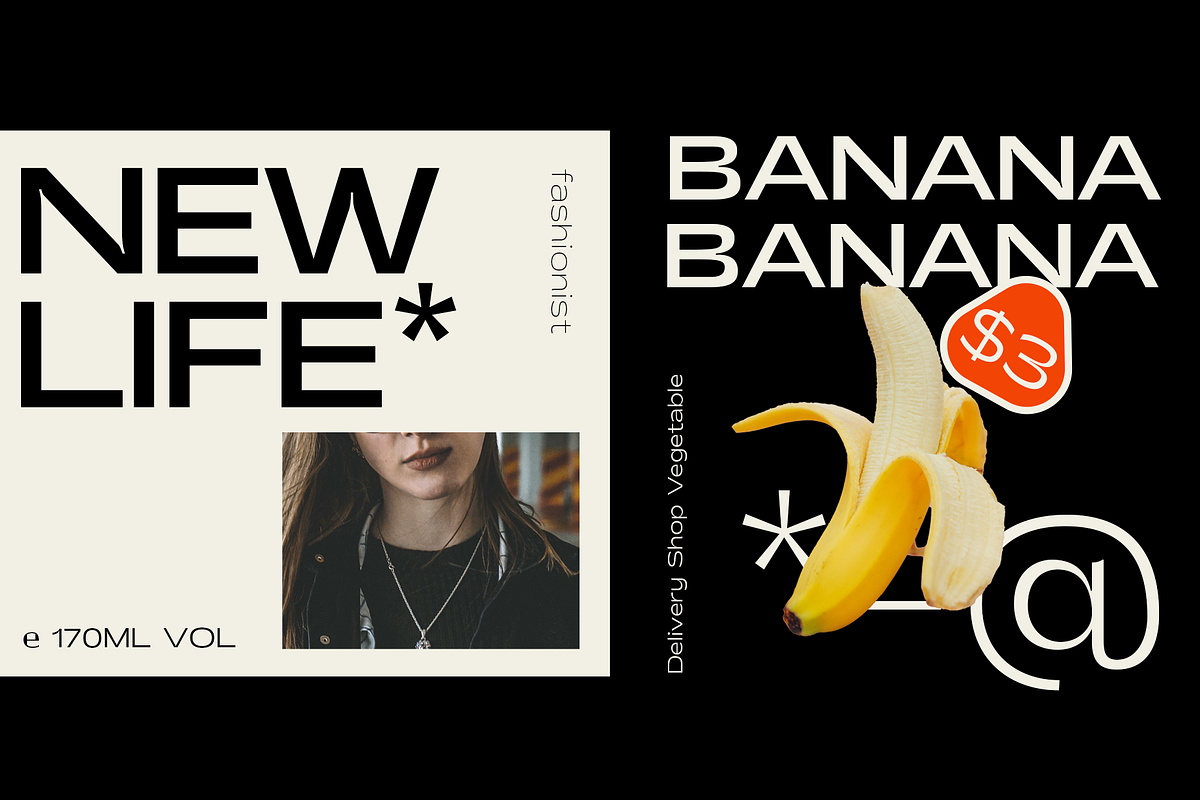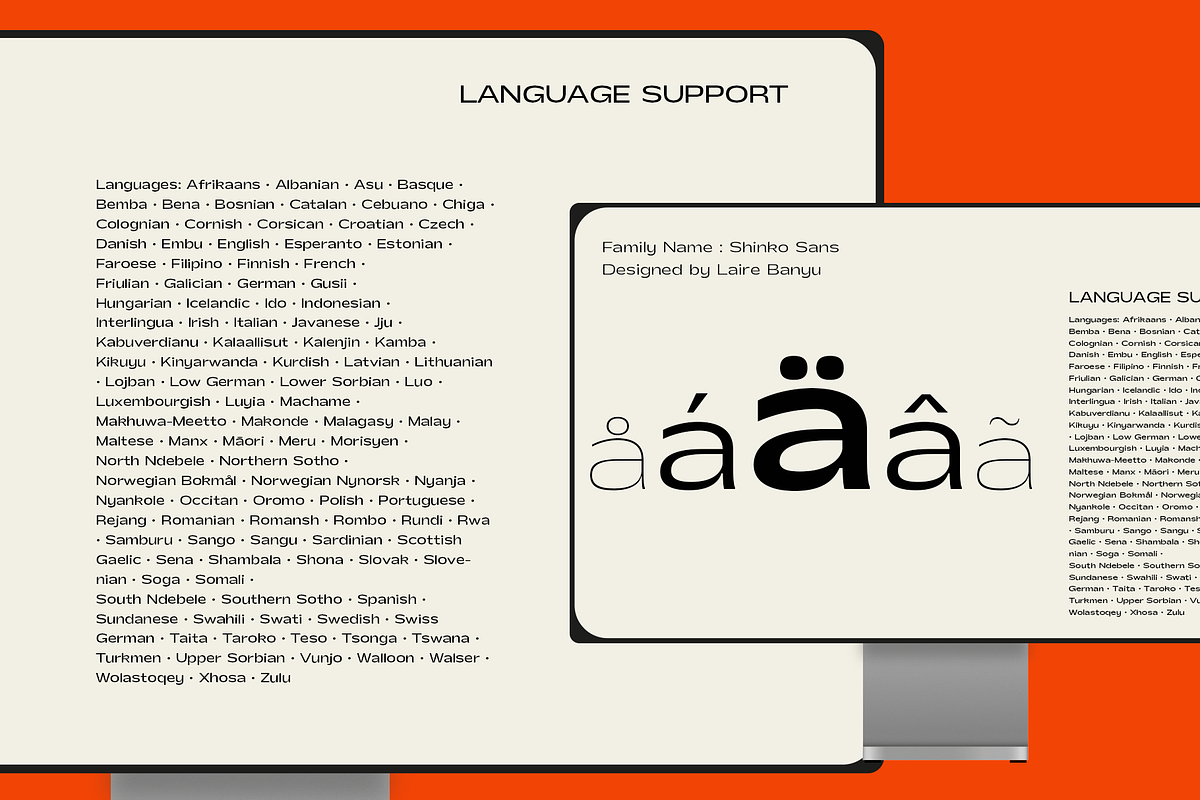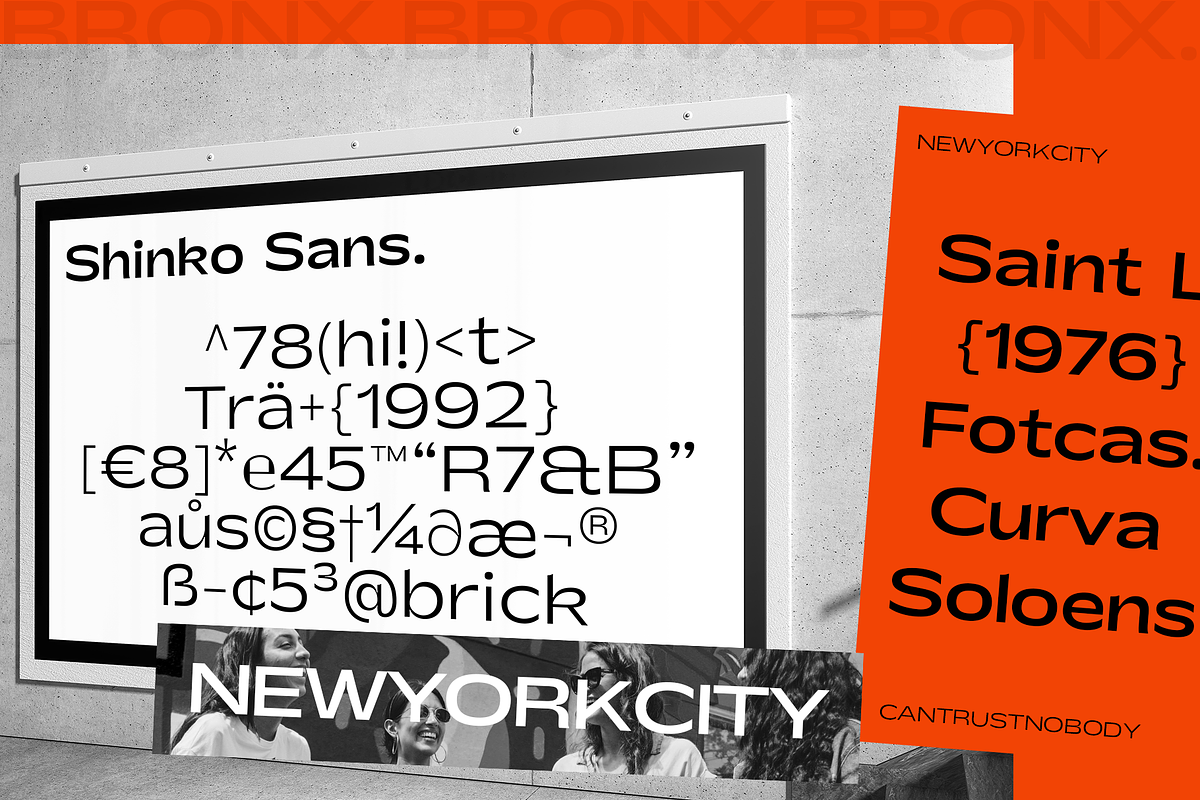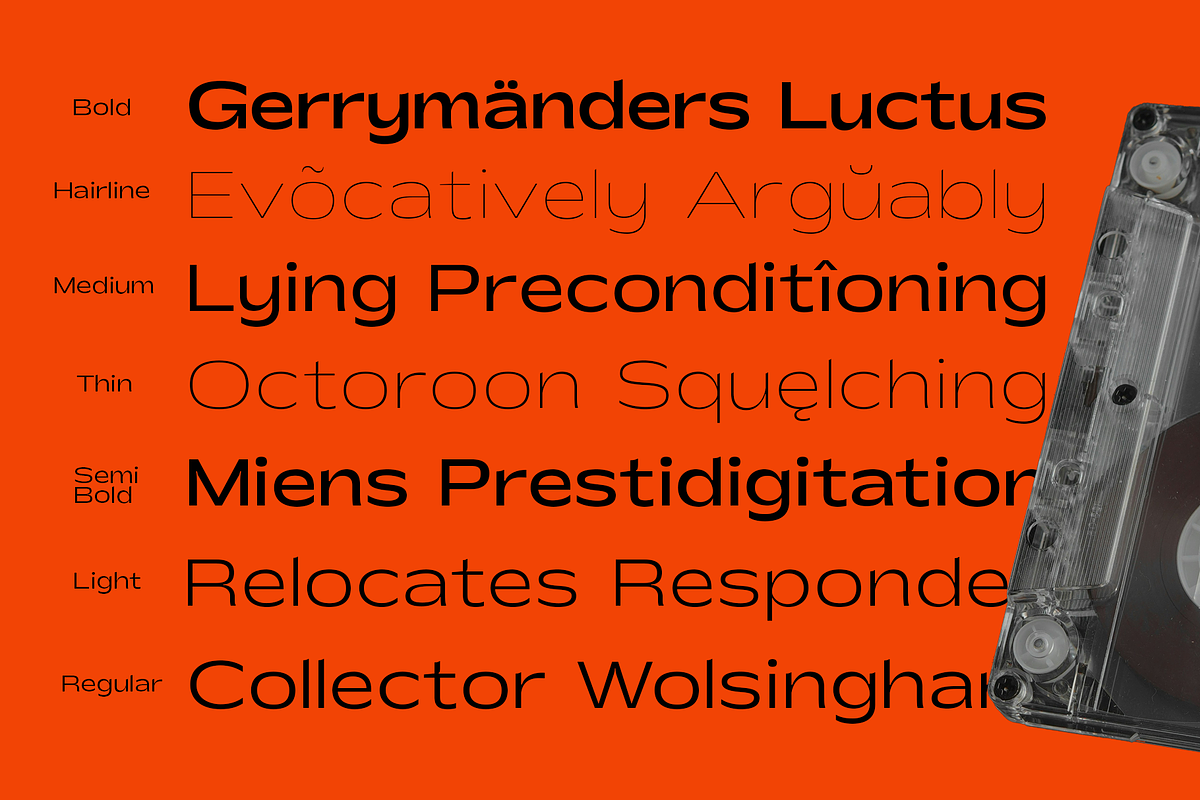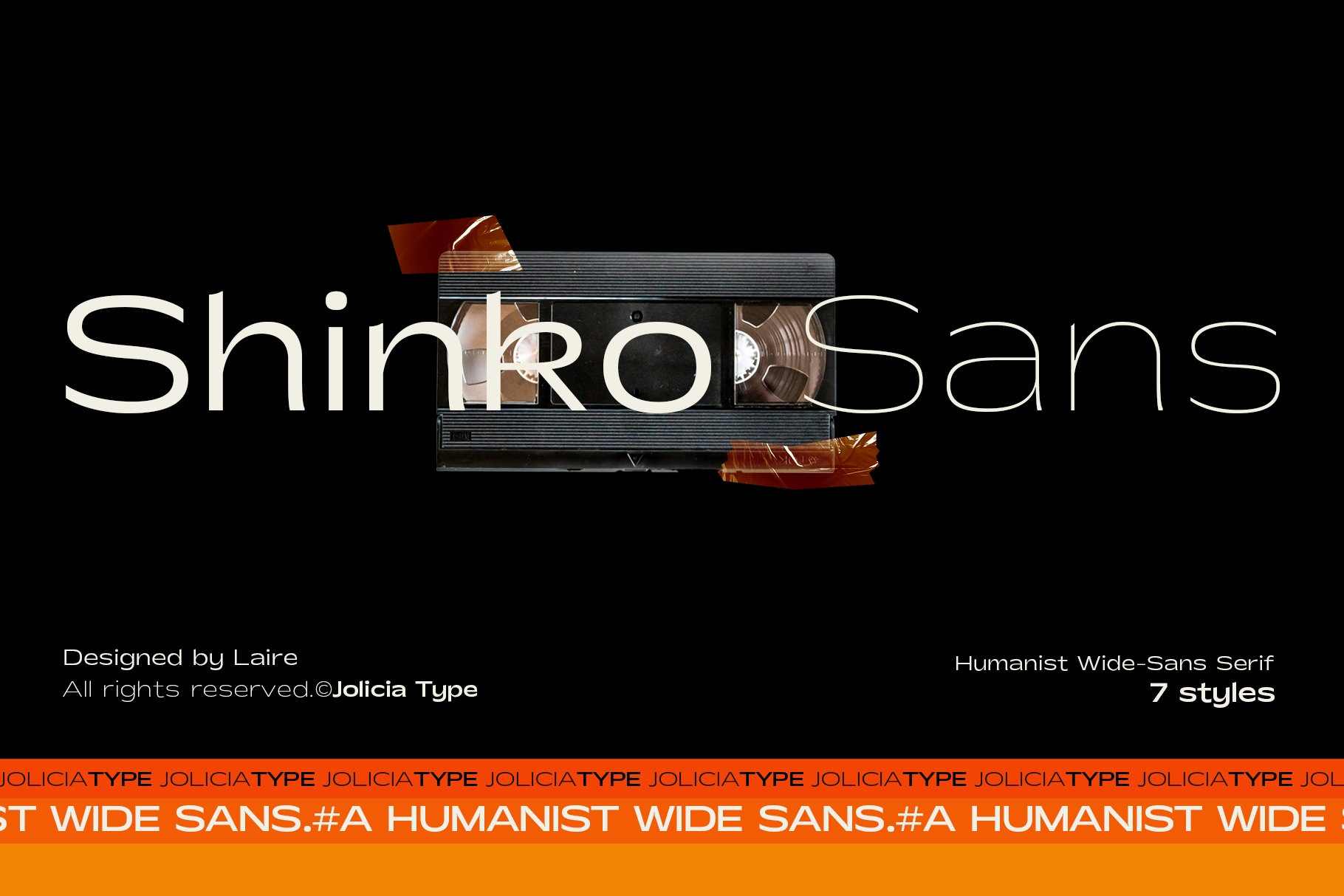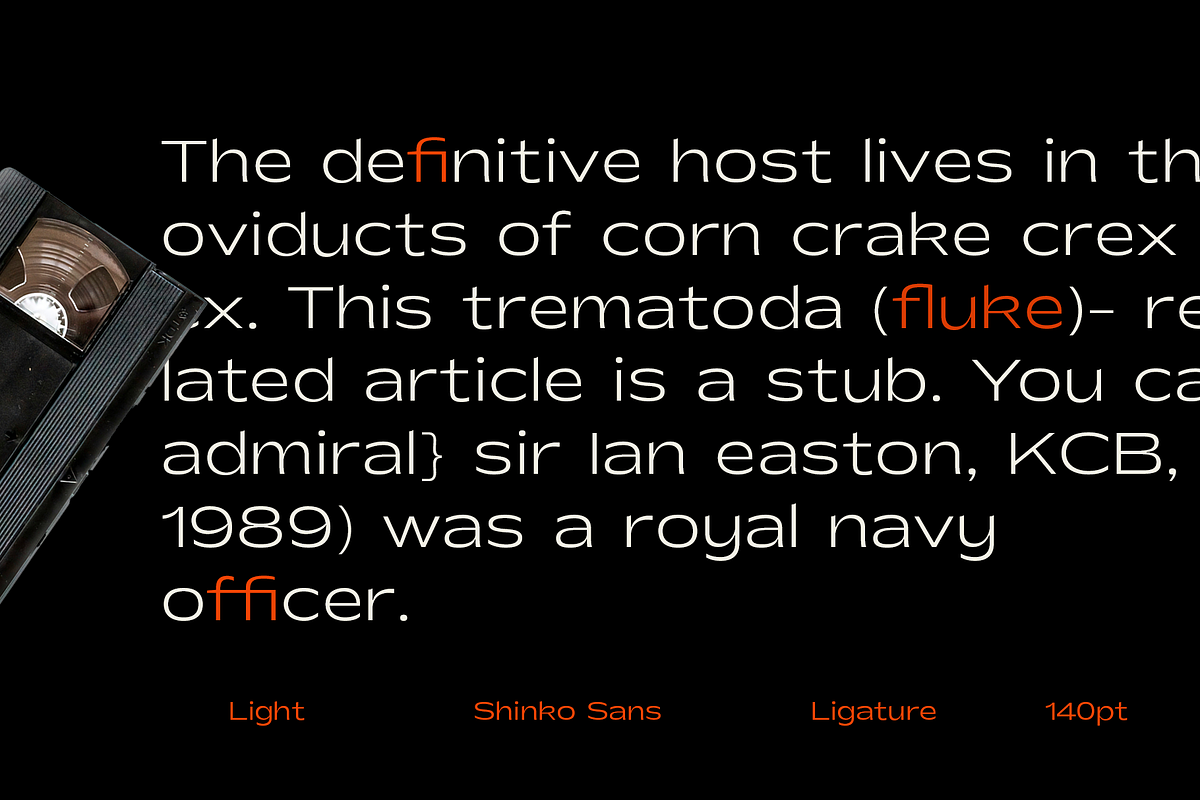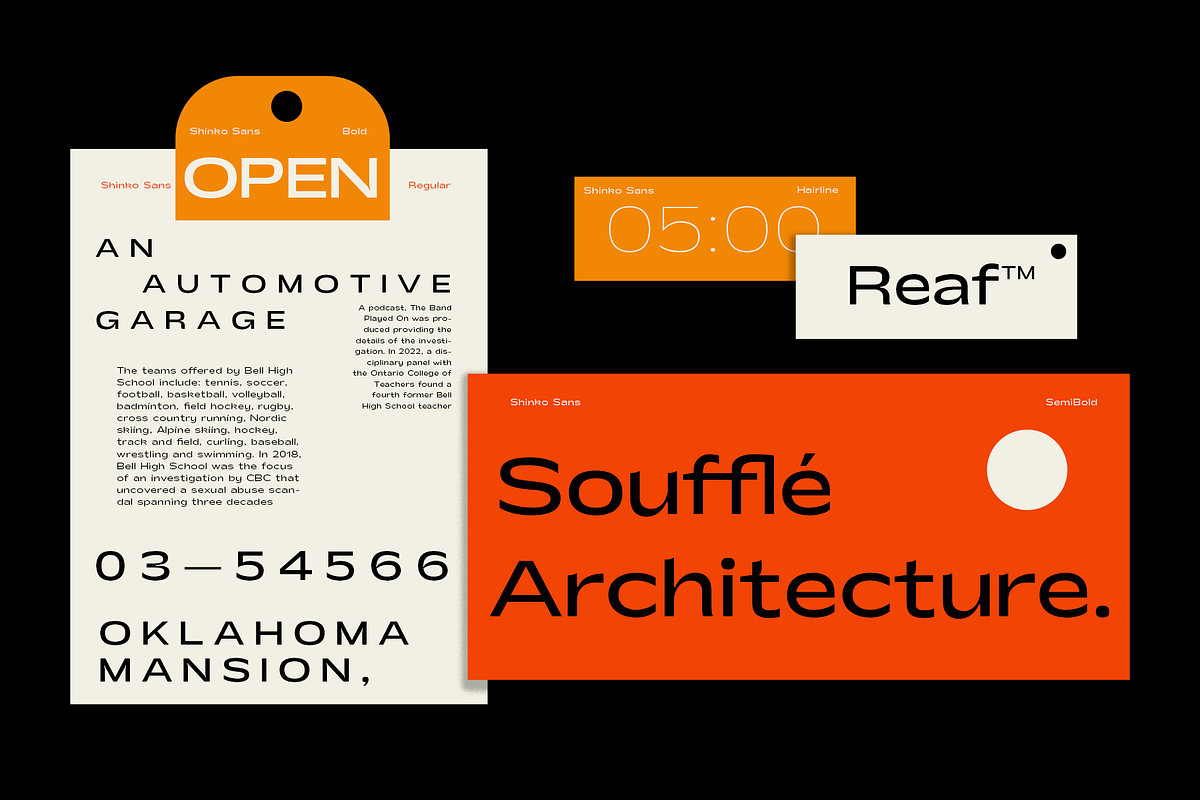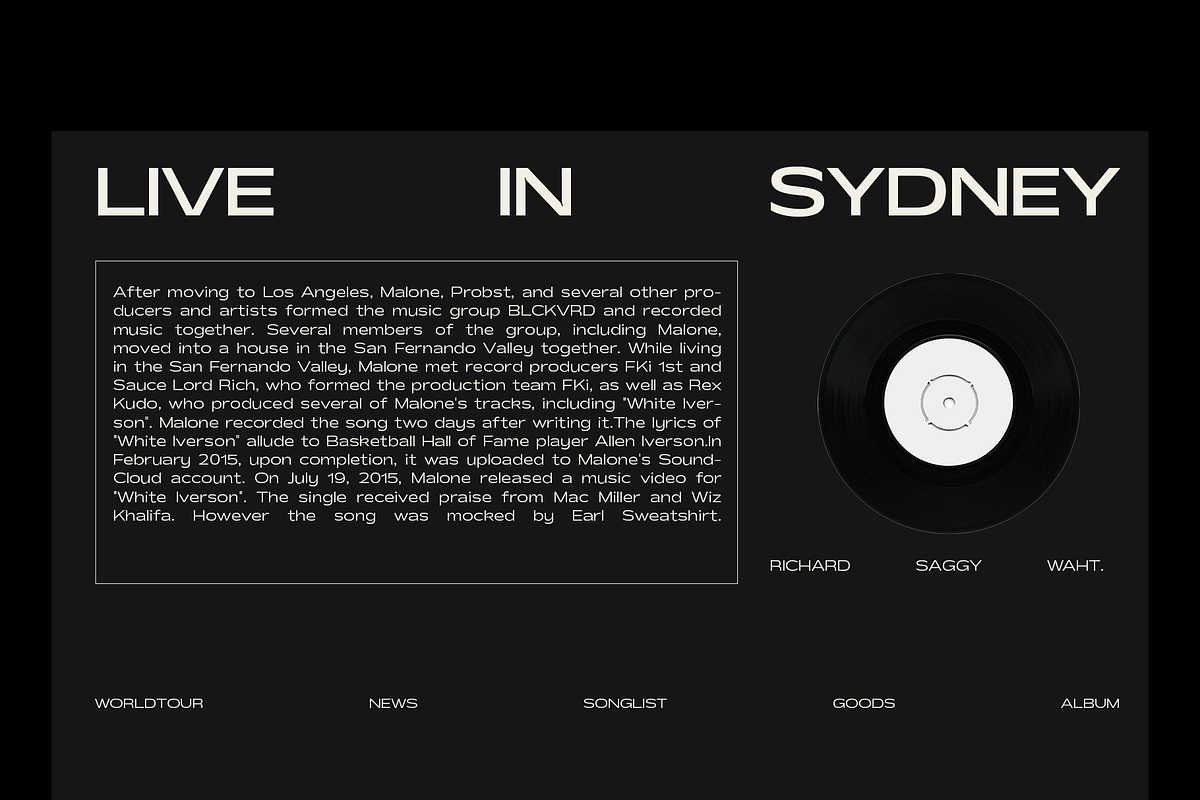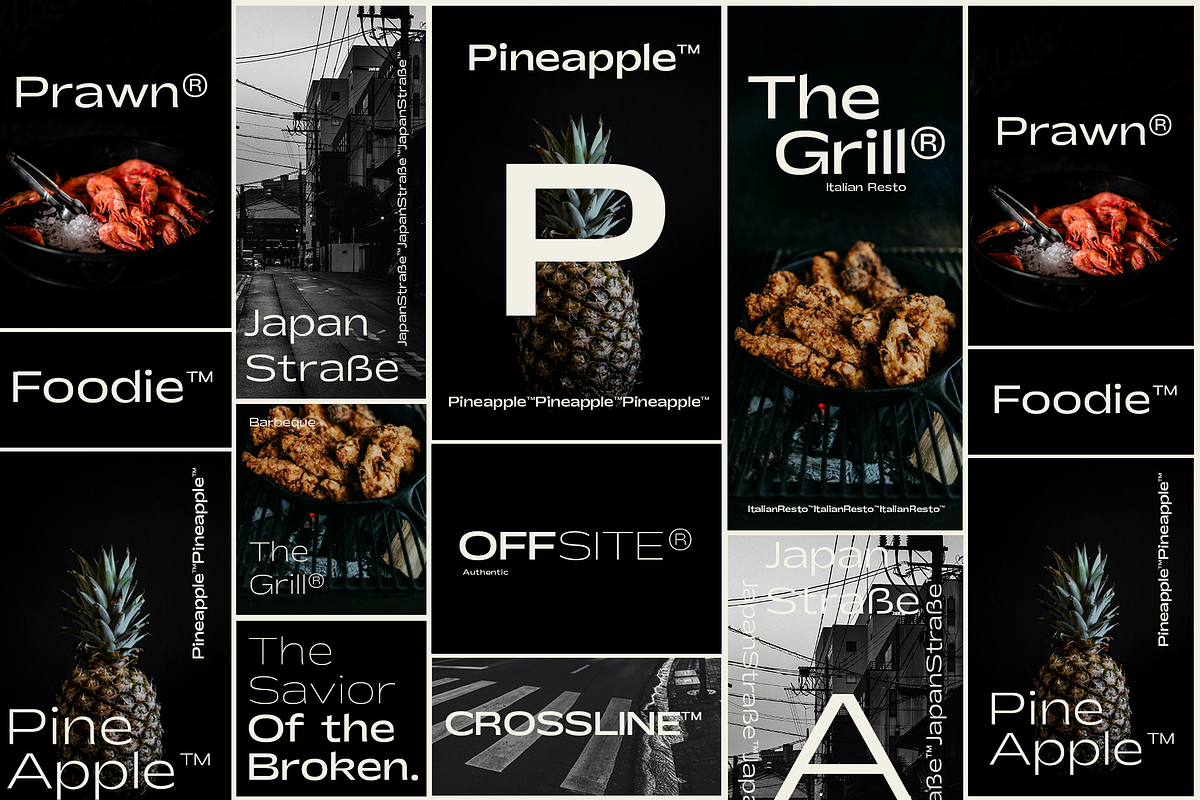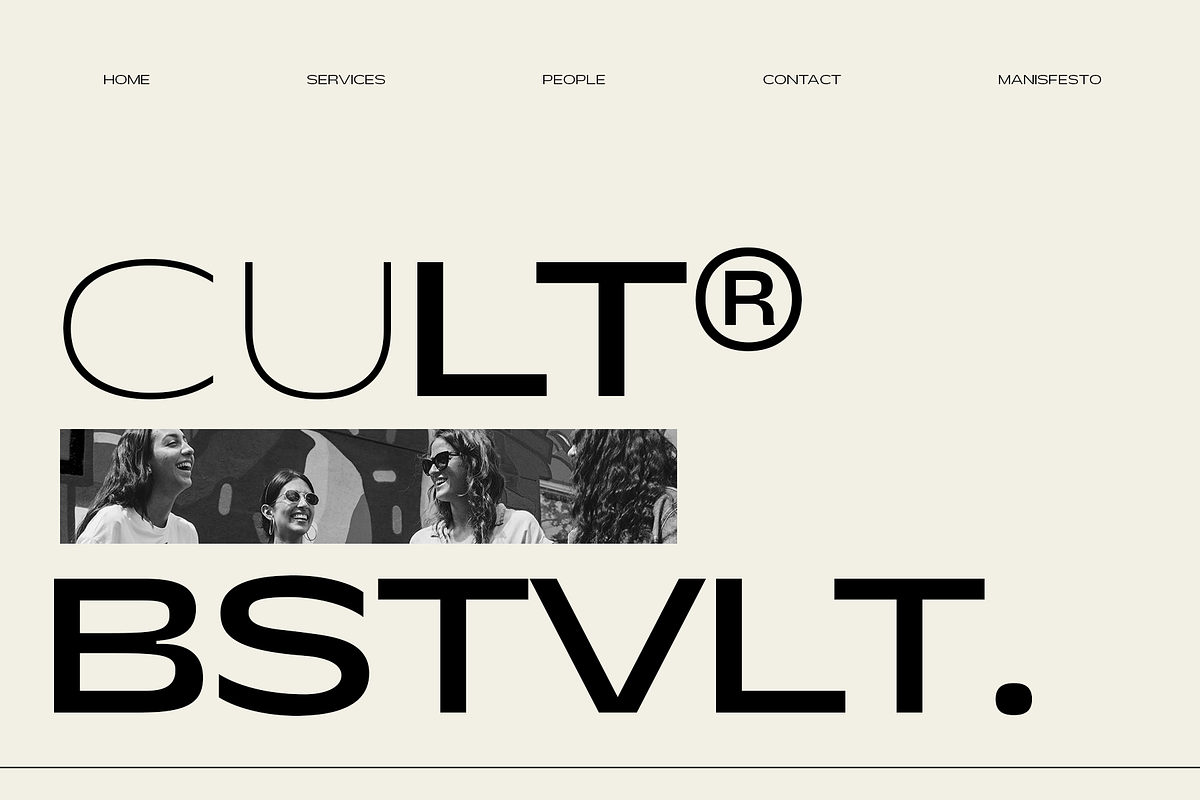
Shinko Sans | Humanist Wide Font
Shinko Sans is a soft and wide humanist-style sans-serif font crafted by Laire Banyu, consisting of 7 weights ranging from Hairline, Thin, Light, Regular, Medium, SemiBold, to Bold. "Shinko" in Japanese means new old, thus it is created to convey a blend of old and new impressions. The letter anatomy at the top end of the letter stems is slightly tapered to the right, while the shoulders are curved softly until they slightly bend towards the lower stem, giving a sharp and elegant impression that is pleasing to the eye. At the junction of thick stems, we provide ink traps so that it still looks good when viewed at small sizes.
It contains a total of 395 glyphs that can cover 89 languages and also OpenType features. Ligatures are included for the letter combinations ff, fi, fl, ffi, and ffl.